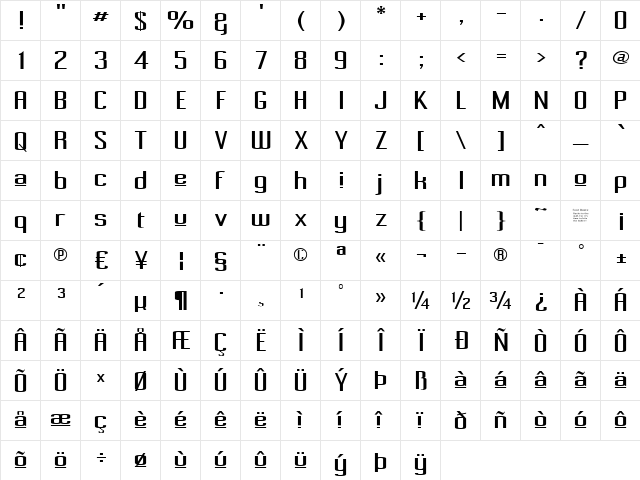
Pecot Upper Regular
Design Context for Pecot Upper Typeface
Pecot Upper takes a measured approach to typography — its balanced proportions and neutral character make it a reliable workhorse for both digital and print work.